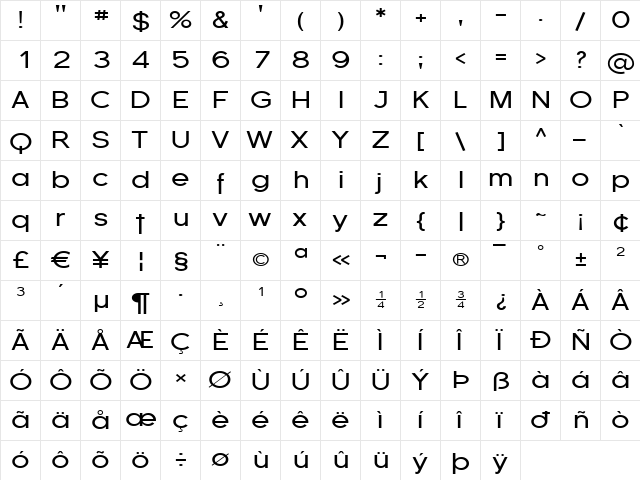
Florencesans Exp Regular
Design Context for Florencesans Exp Typeface
Florencesans Exp offers clean, dependable letterforms without strong stylistic allegiance, making it a practical choice for designers who need flexibility.